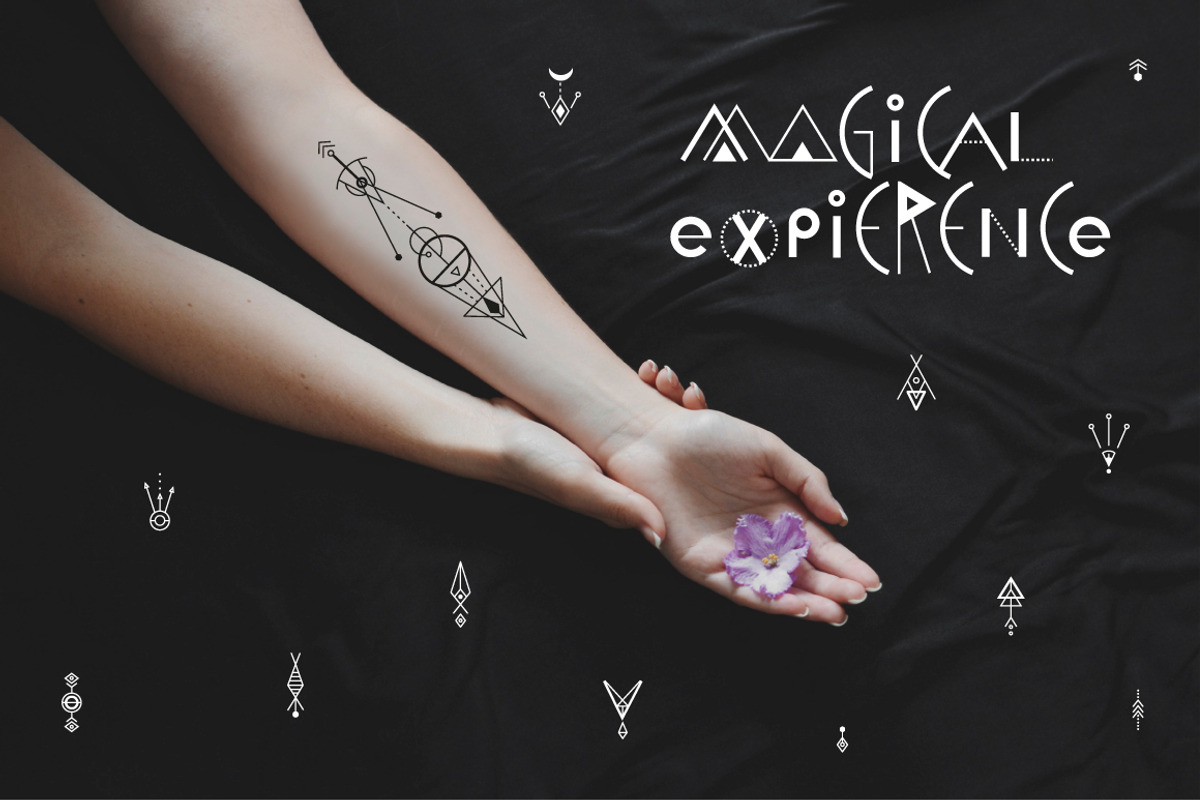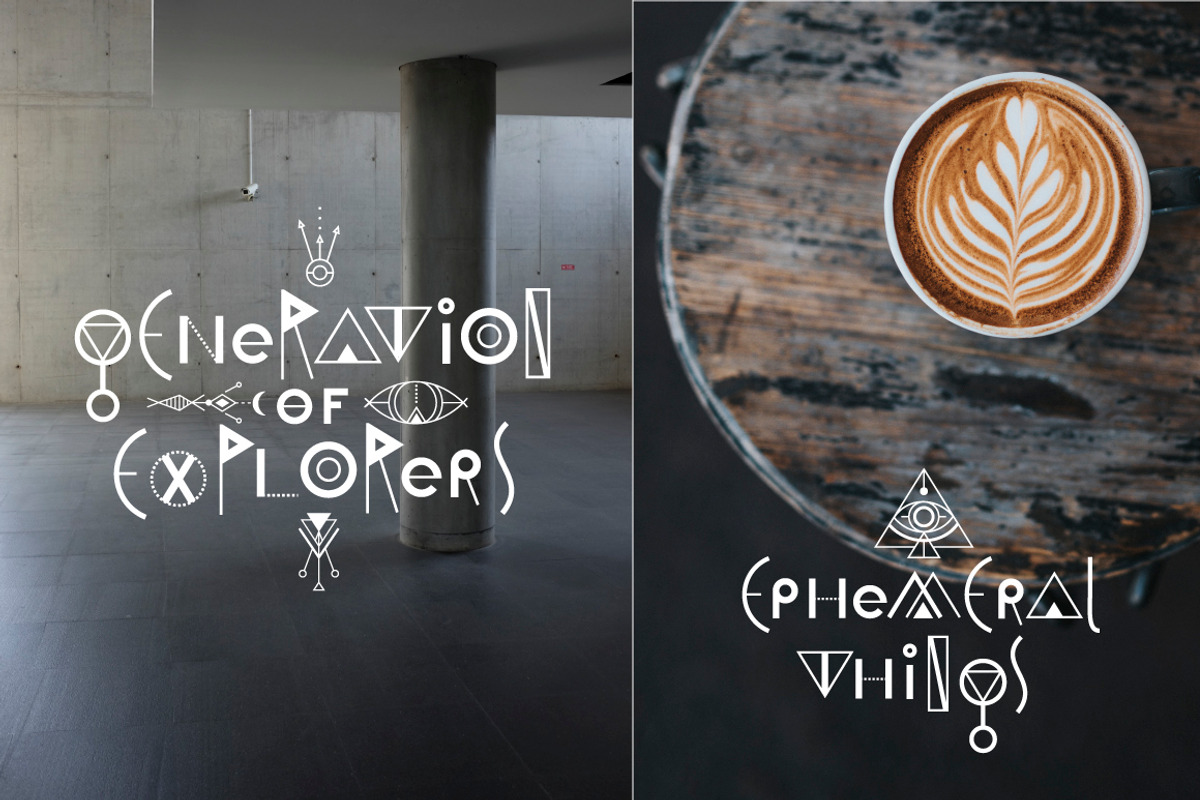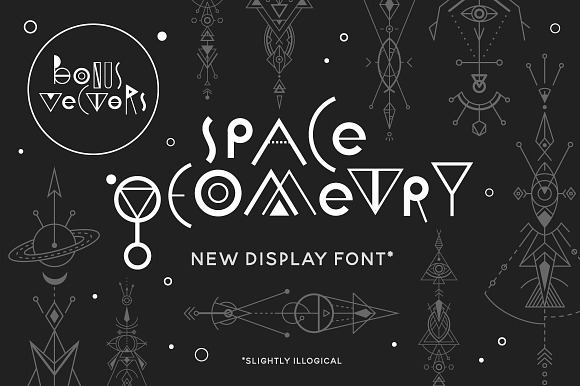
Space Geometry Font+ Bonuses
This is a new display geometric font, and a lot of nice bonuses! You can use it to make logos, display letterings, packaging, posters, greeting cards, merchandize like t-shirts of mugs, and much more!!
1 OTF Space Geometry Font, where you can change uppercase and lowercase any minute to make alternative letterings!
1 OTF Decorative Geometry font of images, which is made of geometric ornaments. Don't try to read it :)